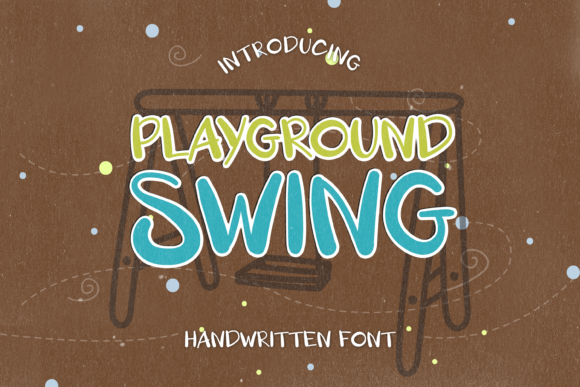
Dive into the wonderland of Playground Swing, a whimsical display font designed to bring a touch of playful energy to your creative endeavors. This enchanting font family, brainchild of the talented WADLEN, exudes an aura of youthful exuberance, inviting you to embark on a journey of artistic exploration. Its bouncy, light-hearted nature is reminiscent of carefree summer days spent swinging high on a playground swing, evoking a sense of pure, unbridled joy. Unleash the limitless possibilities of Playground Swing and let your imagination soar!
With its bold and striking presence, Playground Swing commands attention while maintaining a friendly and inviting demeanor. Its sturdy letterforms, reminiscent of the sturdy construction of a swing set, provide a solid foundation for your designs, ensuring they stand out from the crowd. Yet, amidst the boldness, there's a touch of playfulness, a hint of whimsy that breathes life into your creations. Playground Swing is the perfect font for injecting a sense of fun and excitement into your projects, whether you're designing eye-catching logos, playful social media posts, or vibrant posters.
Transport yourself to a world of unbridled creativity with Playground Swing. Let its energetic vibe and jovial spirit ignite your passion and propel your designs to new heights. Embrace the playful spirit of this remarkable font and watch as your projects come alive with a vibrant, youthful charm that captivates and delights. Playground Swing is not just a font; it's an invitation to let your imagination run wild, to explore the boundless realm of creativity and make a lasting impression on your audience.